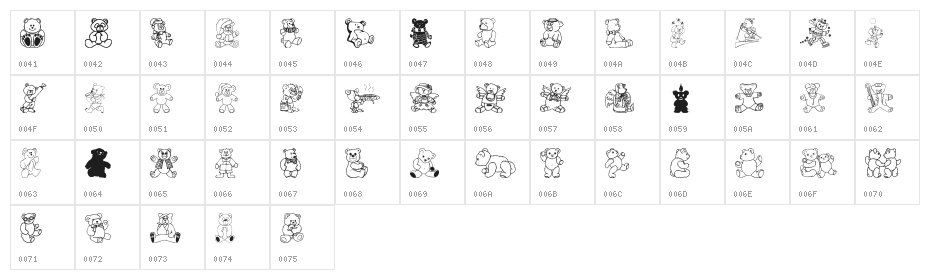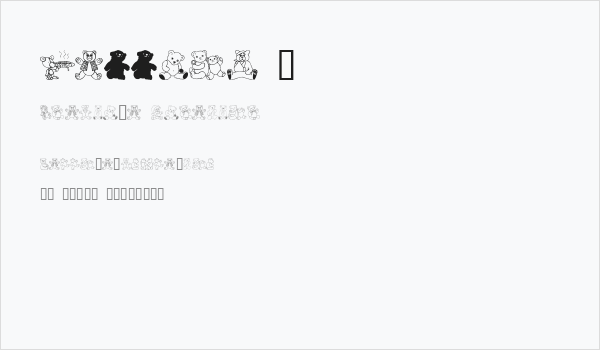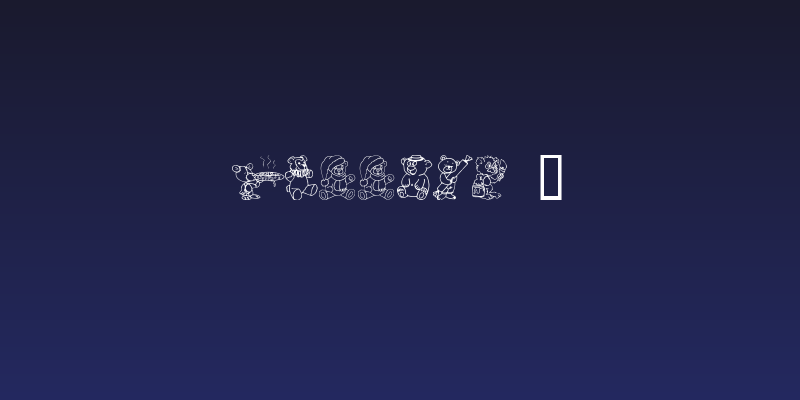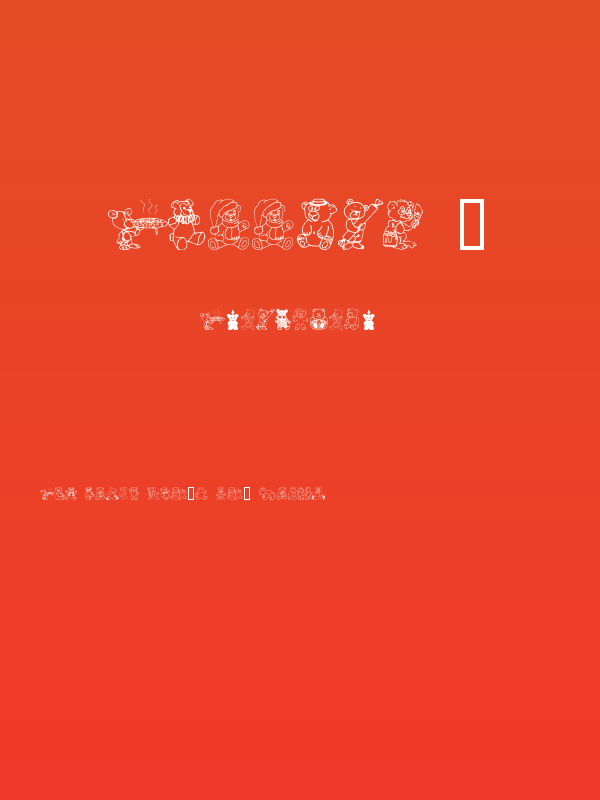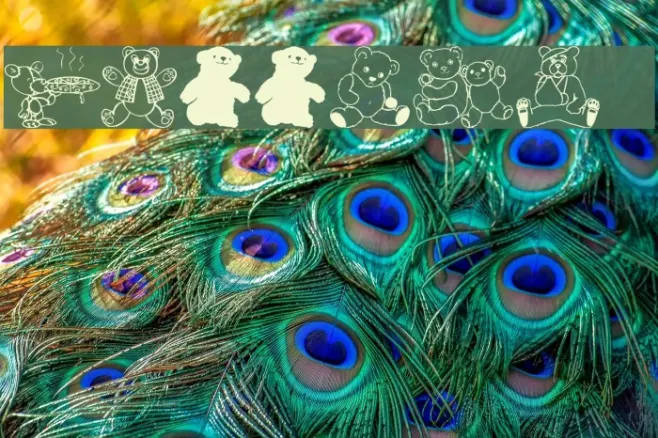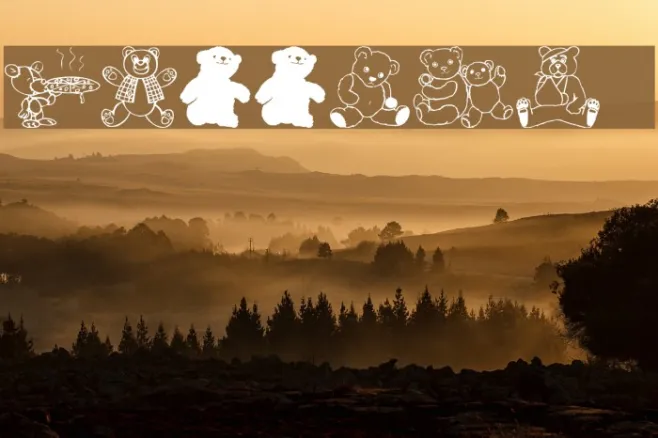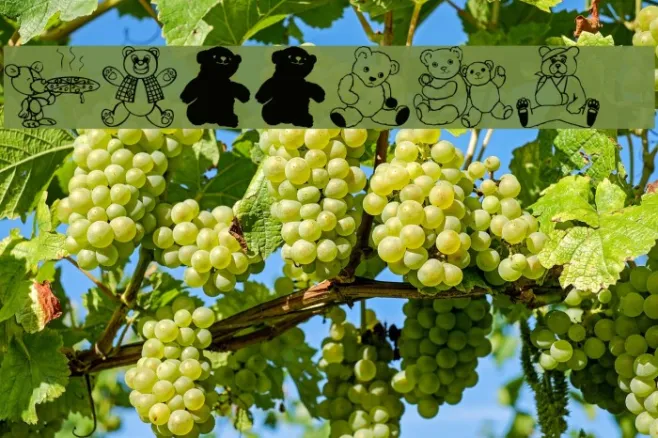
Teddios 1 Font
Teddios 1 Description
A playful decorative font composed of various illustrated teddy bear characters, each letter and number represented by a unique bear drawing with different poses and accessories. The style is whimsical and cartoonish, with hand-drawn outlines and varying levels of detail.
| Overall Style | Decorative, Playful, Cartoonish |
| Use Case | Headlines, Posters, Children's materials, Themed event graphics |
| Proposed Projects | Children's books, birthday invitations, toy packaging, playful posters, educational materials for kids. |